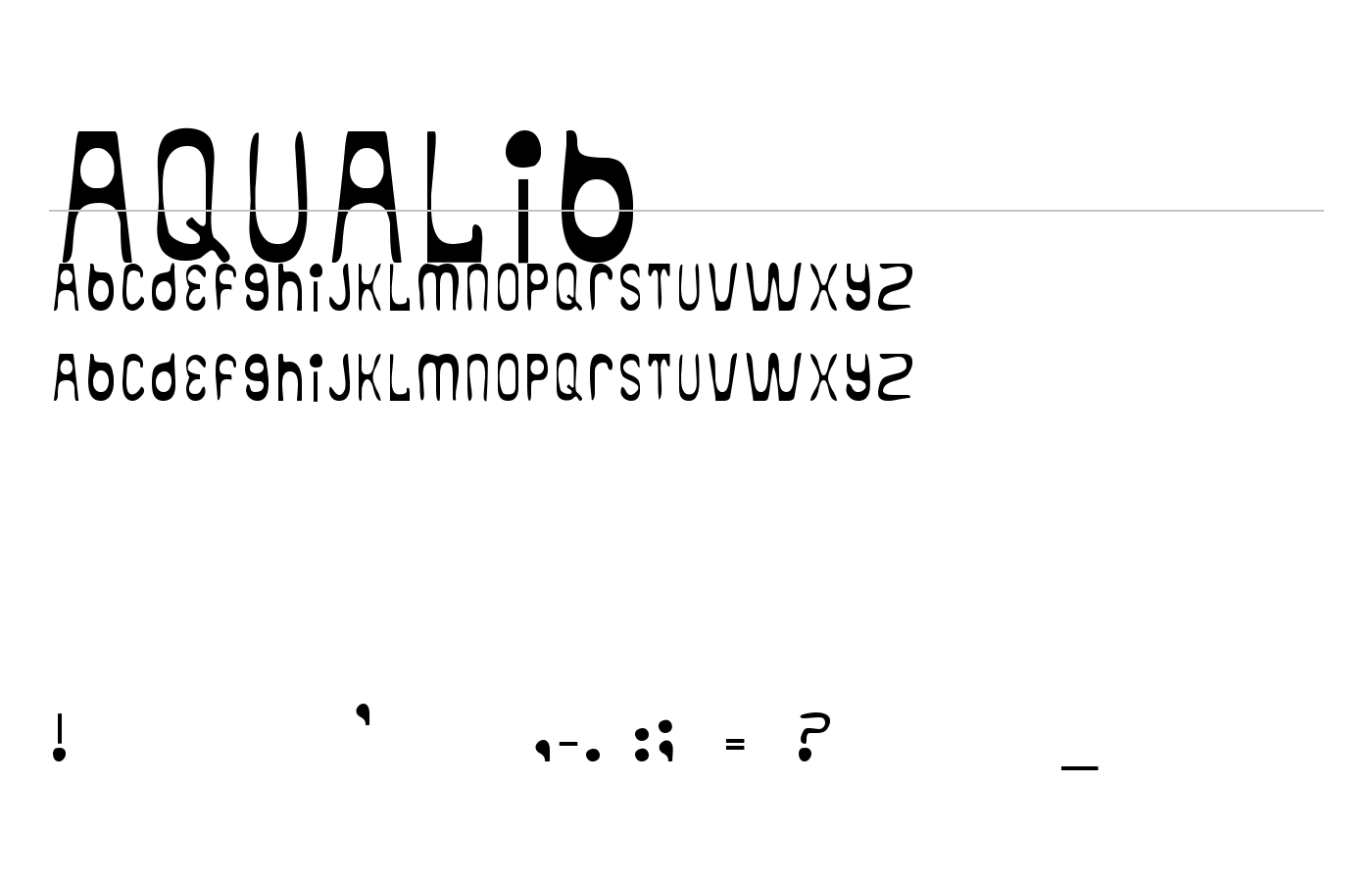
Aqualib is a quirky, condensed sans-serif font with a unique organic feel, featuring irregular, rounded shapes and a playful, hand-drawn style. Its narrow letterforms and whimsical curves make it ideal for creative projects, children’s books, and casual branding where a friendly and informal vibe is desired. This font works best in headlines or display text where its distinctive personality can stand out.
aqualib Font